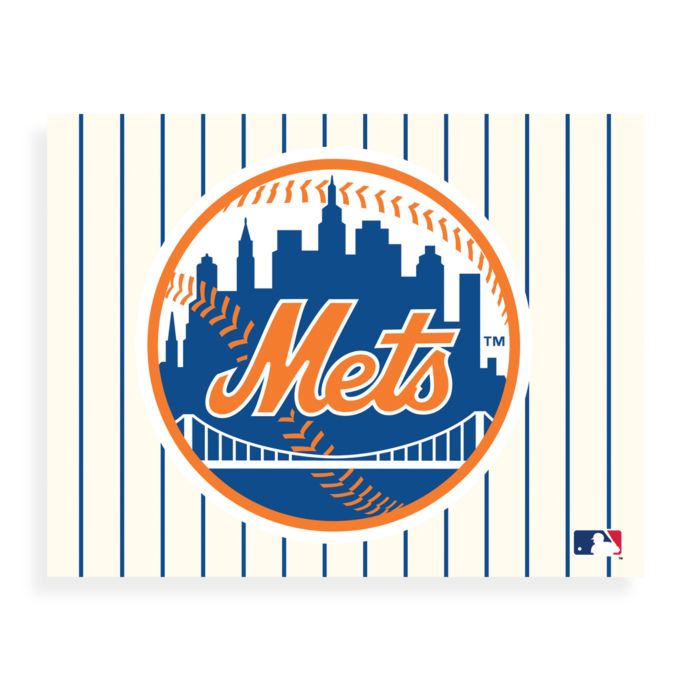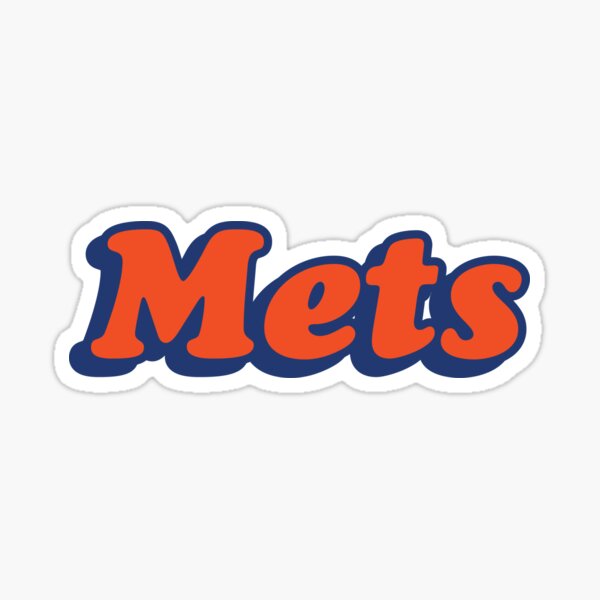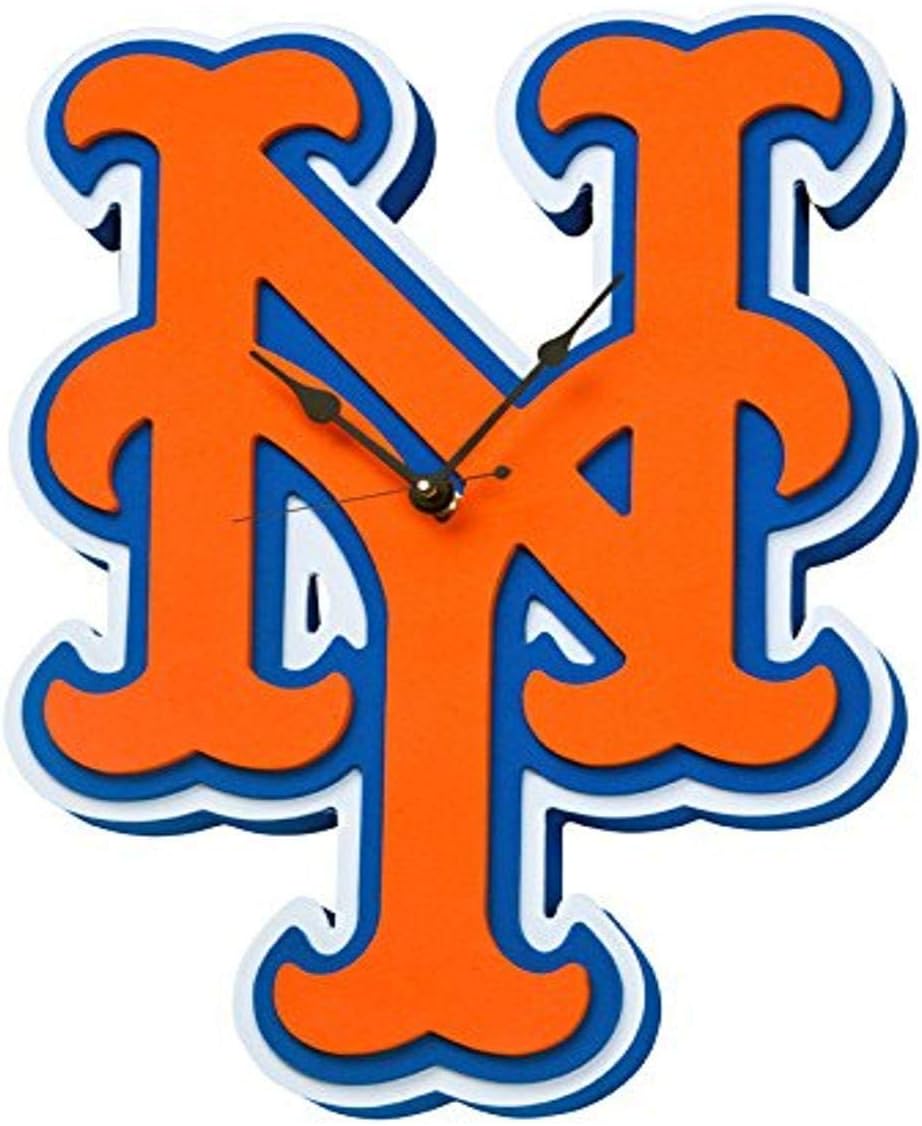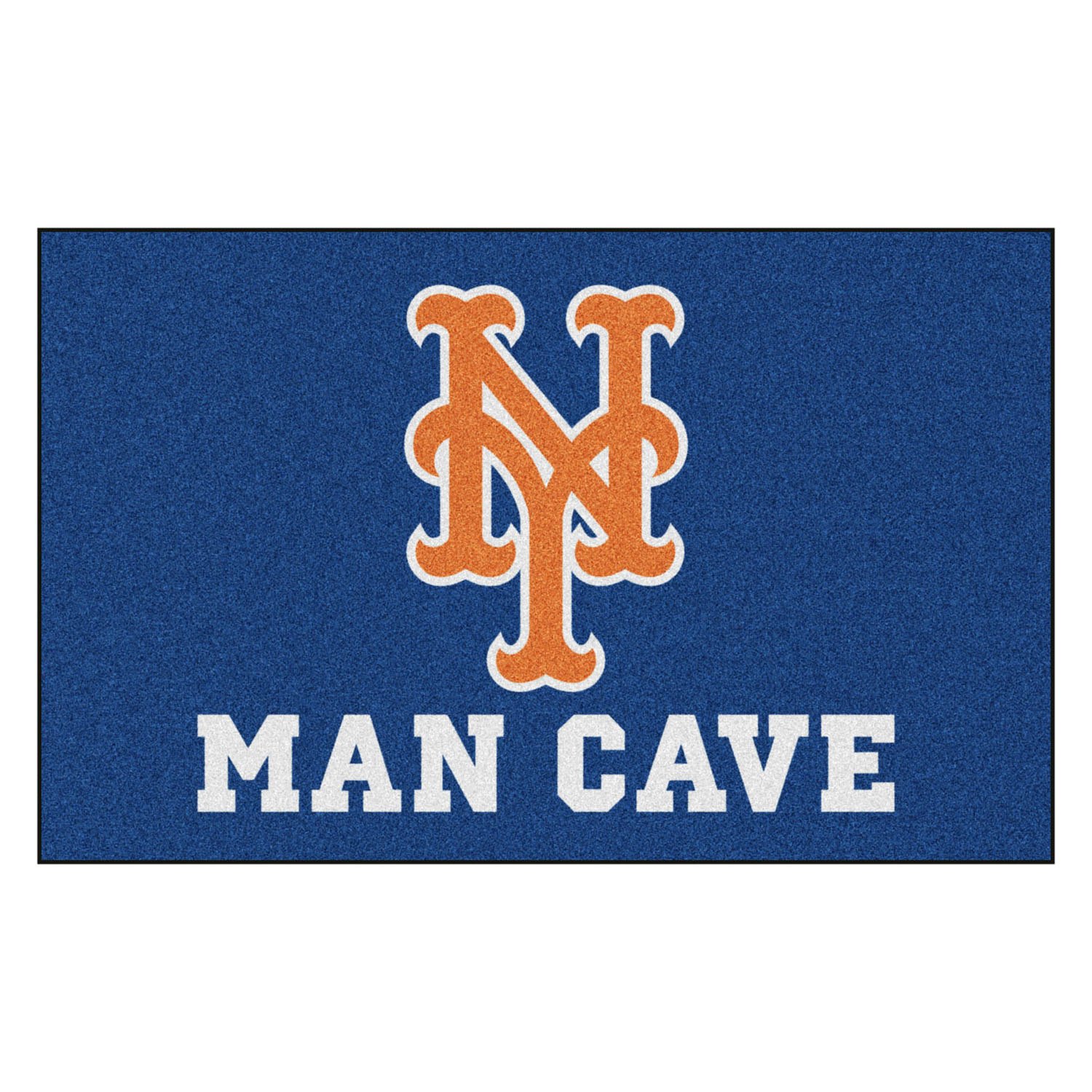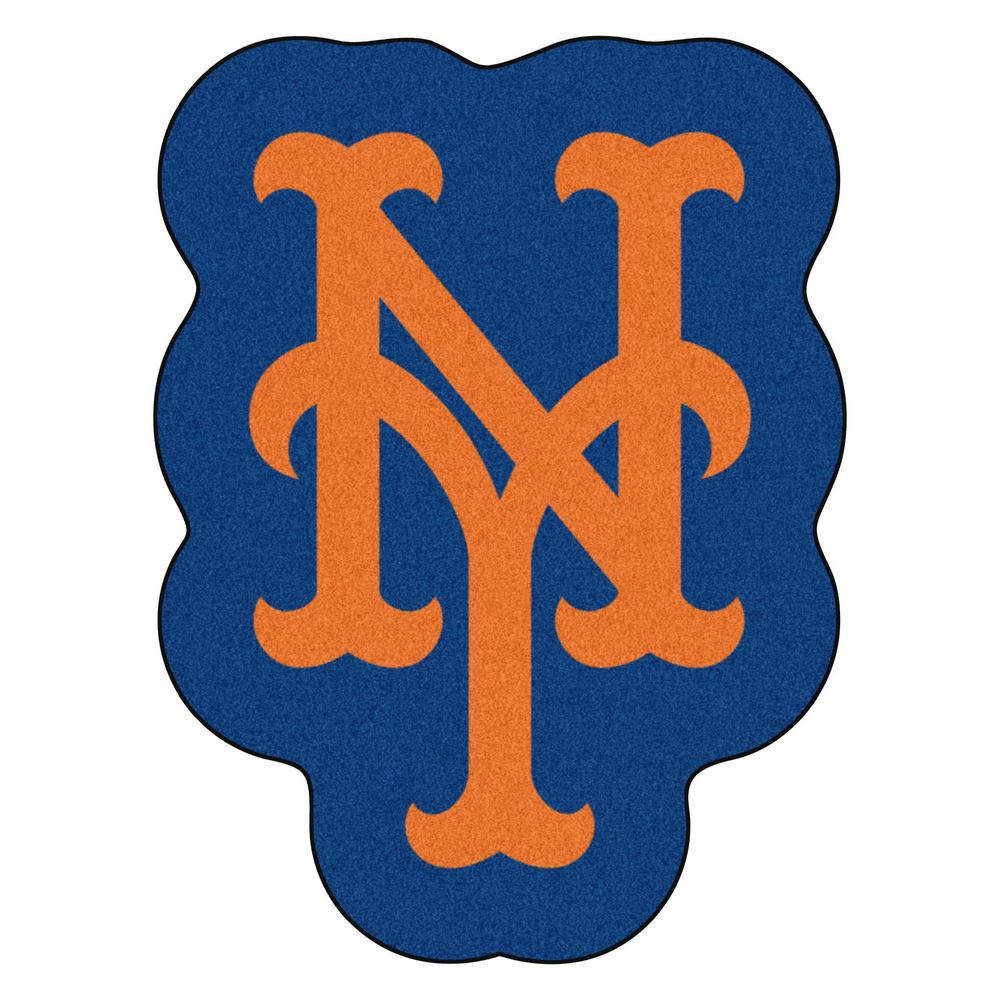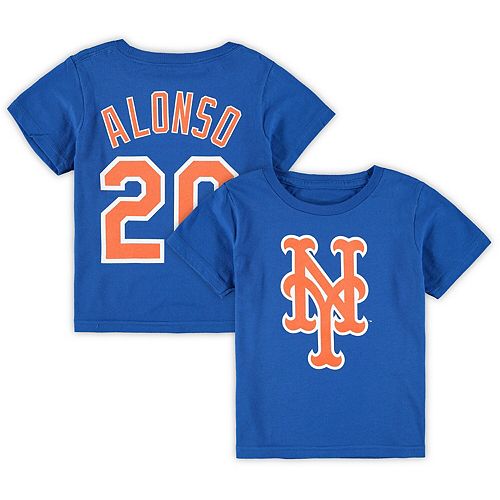
New York Mets Logo Font
New york mets logo font. The road versions new york wordmark numerals and lettering are silver grey outlined in orange. If you mean the skyline mets logo its a stylized logo meaning it doesnt really exist in a font although if you look around you can probably find something passable. Baseball fonts are inspired by the letters on baseball jerseys.
The logo of new york mets which has been used since 1962 features the mets lettering above a bridge in front of new york skyline on a ball. Often they include a large swash which underlines the whole team name. The mets script numerals and lettering on the home version are orange with white outline.
Another font that is close to the mets road script is actually called bosox. Generate baseball uniforms or event flyers with these free fonts. Both alternate jerseys have orange piping on the collarplacket and sleeve ends resembling the road jersey and the primary logo patch on the left sleeve.